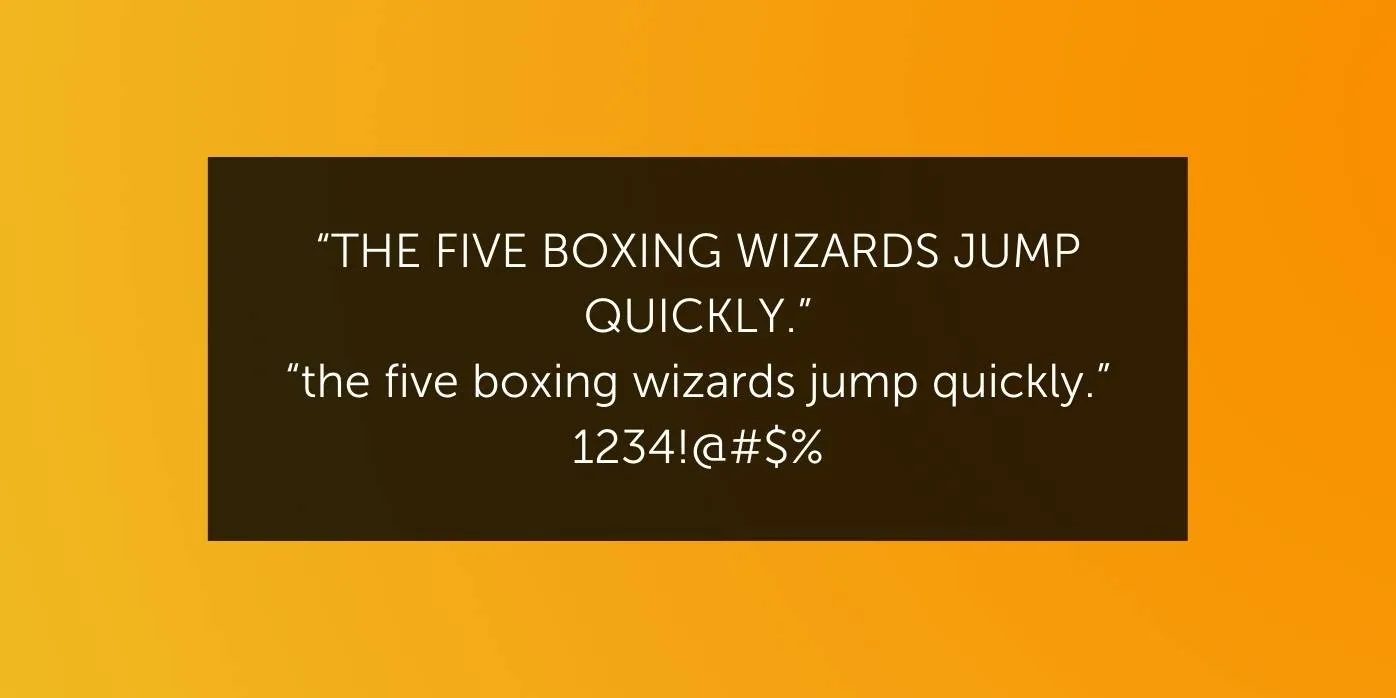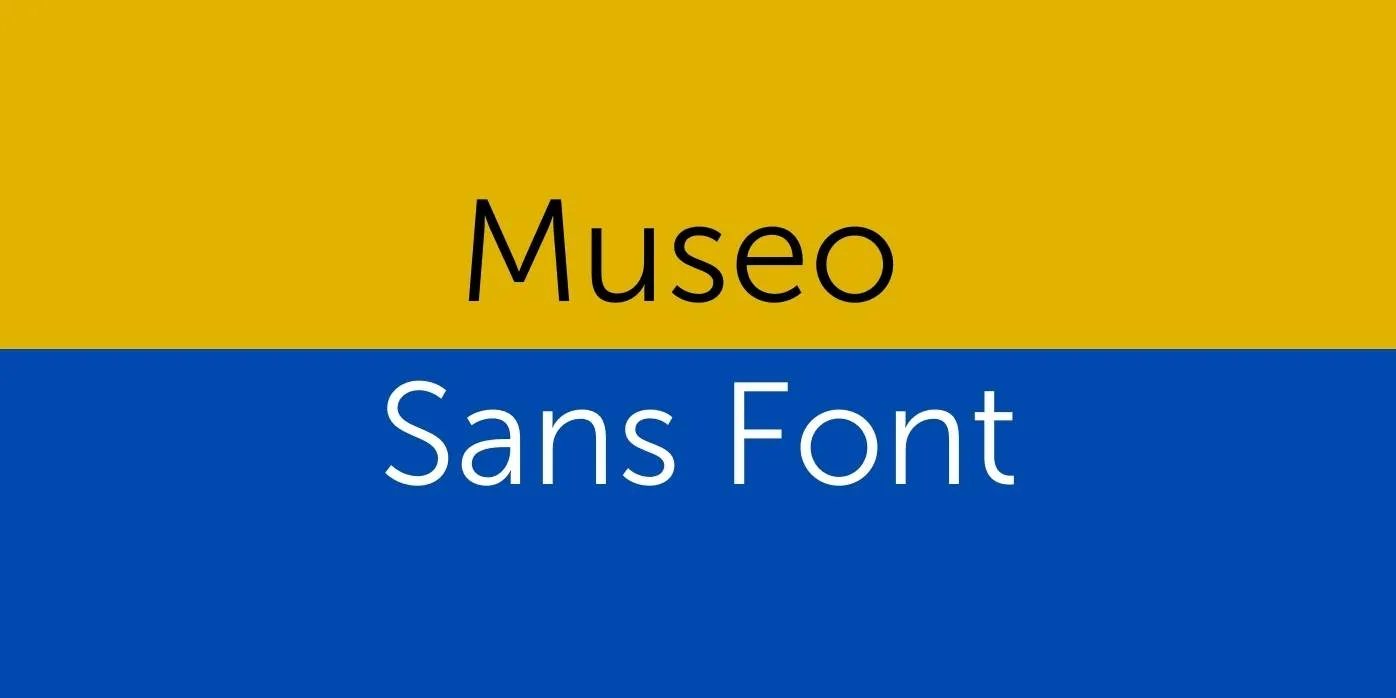
Museo Sans Font
Today we are consulting on a very famous typeface known as Museo Sans Font. This font family belongs to the sans serif font family. It was developed by Jos Buivenga.  It was released in the year 2010. And since its release, this font family has gained immense popularity.
The reason behind its popularity is that it includes various features and benefits. This typeface includes 5 unique and famous styles in total. Its alternative somatic font is useful for various designs. This font family has 10 different and famous patterns.
It is not from google font. This typeface is also best for use in Word. It is based on an early 20th-century German sans serif called Kabel. The main difference between the two fonts is that Museo Sans uses contemporary proportions and geometric shapes, while Kabel was designed with traditional proportions and shapes.